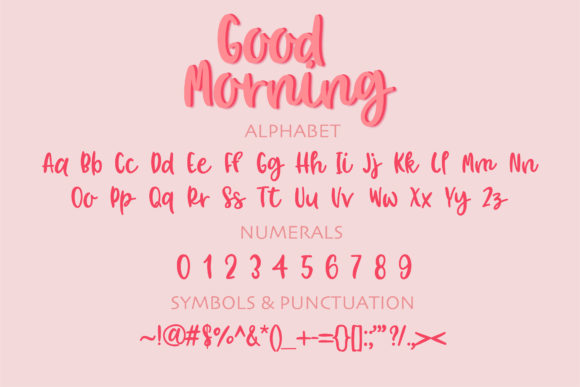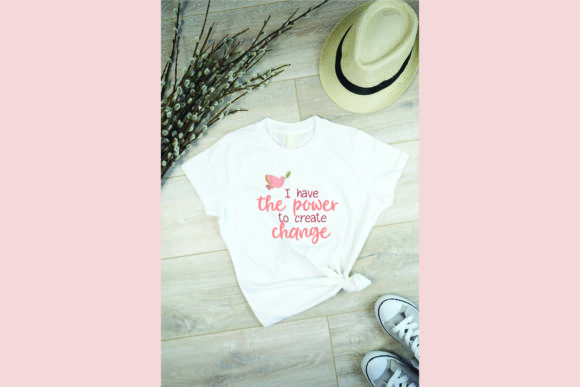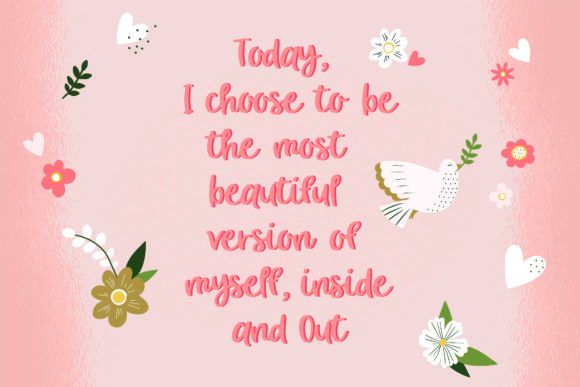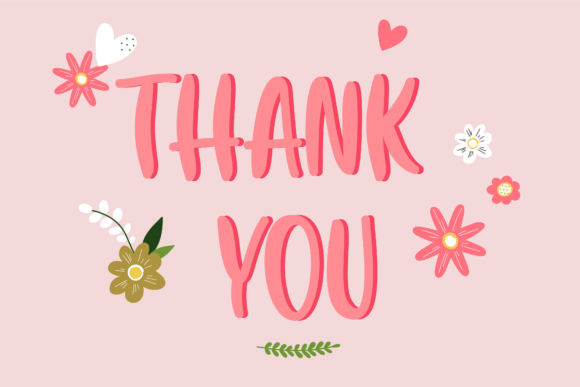
Introducing Good Morning Font: A Simple, Playful, and Informal Handwritten Delight
Are you a designer, crafter, or DIY enthusiast looking for a font that can add a personal touch to your projects? Look no further than Good Morning Font, a beautiful, simple, playful, and informal handwritten font that’s perfect for a wide range of crafting ideas. In this article, we’ll explore the features and benefits of Good Morning Font, and show you how it can elevate your designs, from cards and branding to labels and more.
What is Good Morning Font?
Good Morning Font is a carefully crafted handwritten font that’s designed to bring a sense of warmth and friendliness to your projects. Its simple and playful design makes it perfect for a variety of applications, from casual greeting cards and invitations to branding and labeling projects. With Good Morning Font, you can add a personal touch to your designs and make them stand out from the crowd.
Key Features of Good Morning Font
- Handwritten Design: Good Morning Font features a beautiful, handwritten design that’s perfect for adding a personal touch to your projects.
- Simple and Playful: The font’s simple and playful design makes it easy to read and fun to use.
- Informal Style: Good Morning Font has an informal style that’s perfect for casual projects, such as greeting cards, invitations, and DIY crafts.
- Versatile: The font is versatile and can be used for a wide range of projects, from branding and labeling to scrapbooking and journaling.
Benefits of Using Good Morning Font
So, why should you choose Good Morning Font for your projects? Here are just a few benefits of using this amazing font:
- Adds a Personal Touch: Good Morning Font adds a personal touch to your projects, making them feel more handmade and special.
- Easy to Read: The font is easy to read, even at small sizes, making it perfect for use in a variety of projects.
- Versatile: Good Morning Font can be used for a wide range of projects, from formal to informal, and can be paired with a variety of other fonts and design elements.
- Time-Saving: With Good Morning Font, you can create professional-looking projects in no time, saving you time and effort.
Ideas for Using Good Morning Font
Good Morning Font is perfect for a wide range of projects, including:
- Greeting Cards: Use Good Morning Font to create beautiful, handmade greeting cards for special occasions.
- Branding: Add a personal touch to your branding materials, such as logos, business cards, and letterheads.
- Labels: Use Good Morning Font to create custom labels for your products, gifts, or DIY projects.
- Scrapbooking: Add a personal touch to your scrapbooking projects with Good Morning Font.
- Journaling: Use Good Morning Font to add a personal touch to your journaling and diary entries.
Tips for Using Good Morning Font